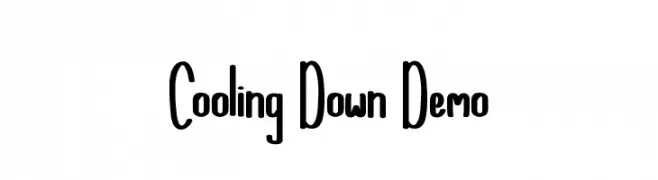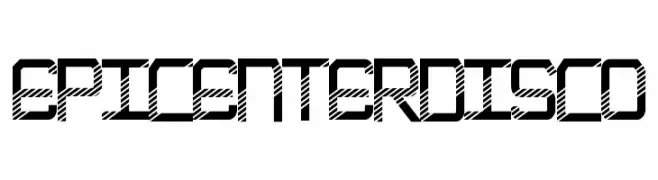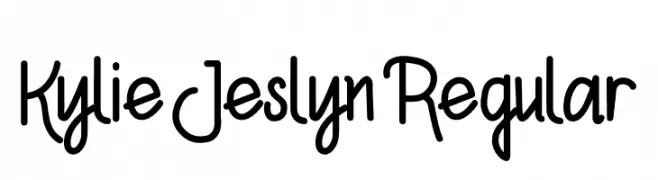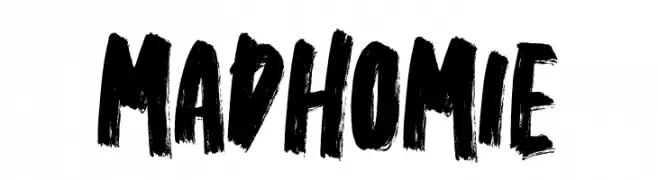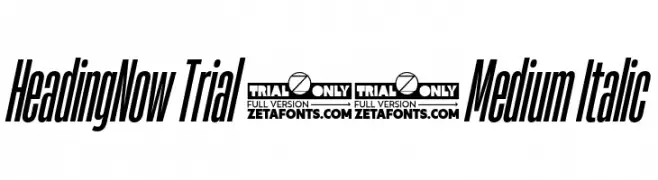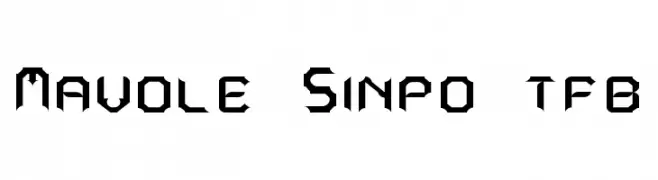
A bold, rounded font with a playful and modern style.
A bold, hollow Western-style font with a vintage flair.
A playful, modern font with tall, narrow letters and smooth, rounded strokes.
A bold, geometric font with diagonal line patterns for a dynamic look.
A bold, comic-style handwritten font with a playful and dynamic appearance.
A playful, handwritten font with a whimsical and friendly style.
A bold, brush-style font with dynamic and expressive strokes.
A modern, italic, and condensed font with uniform stroke weight.
A bold, graffiti-inspired font with dynamic, angular strokes and urban flair.
A bold, geometric font with sharp, angular edges and a futuristic style.